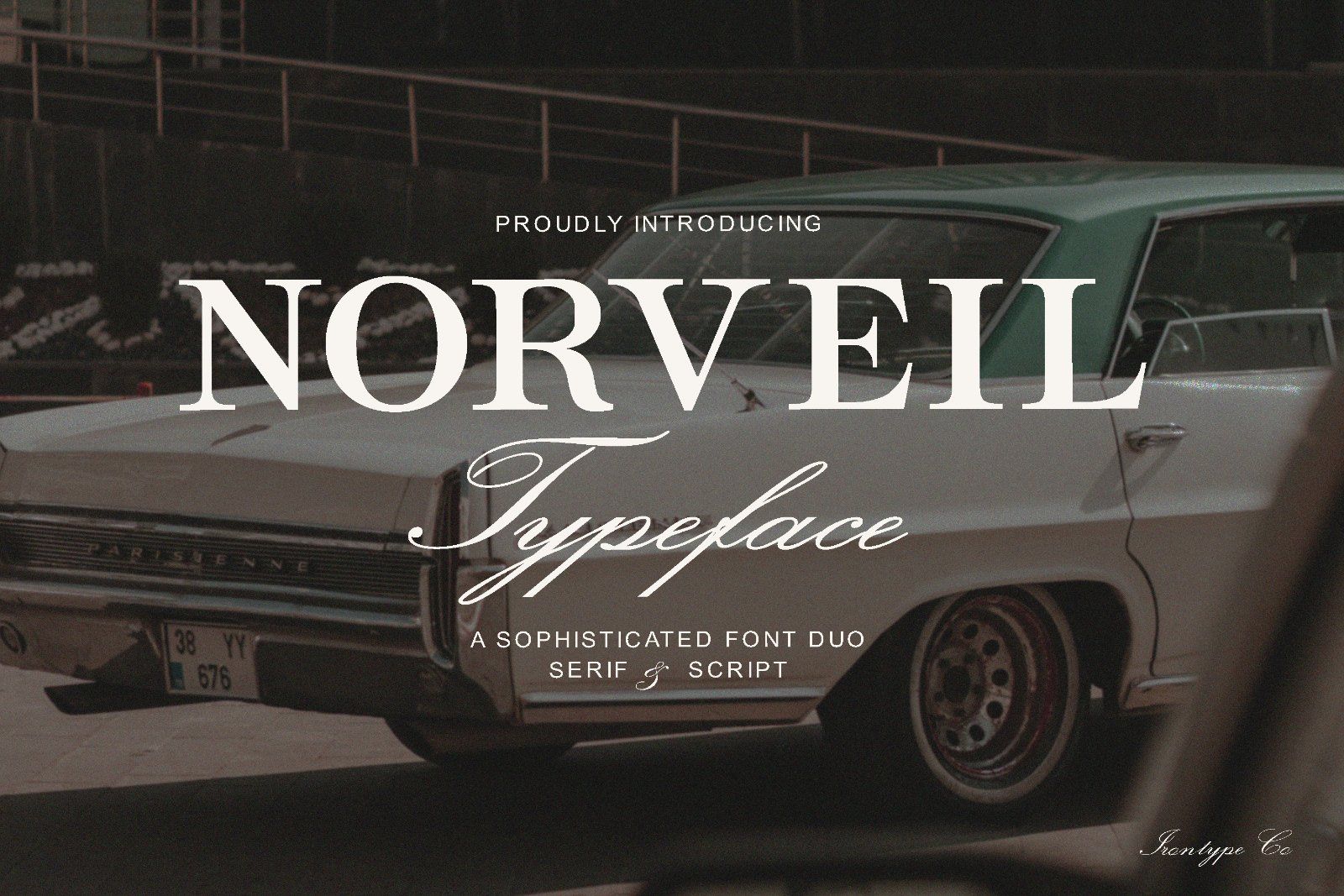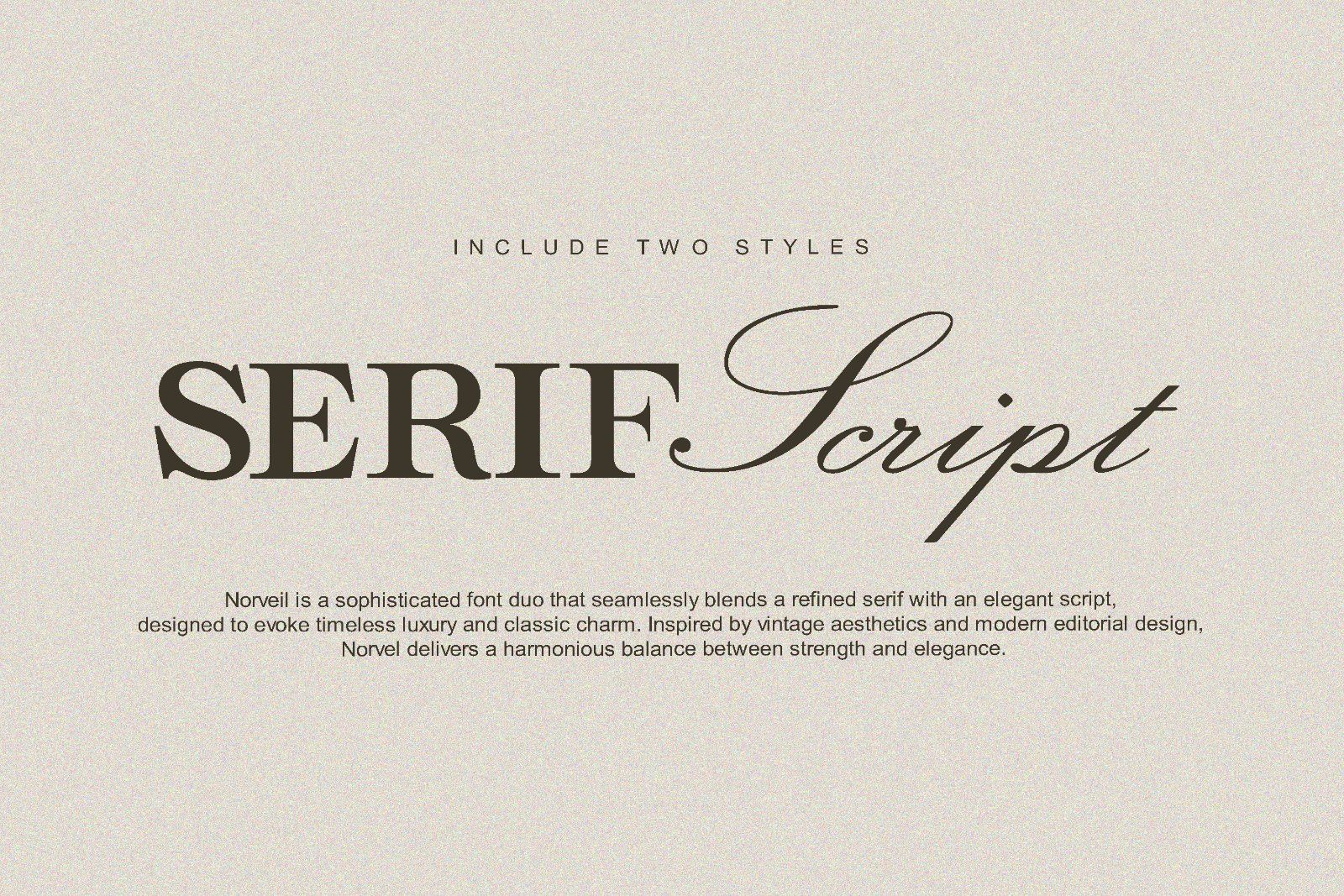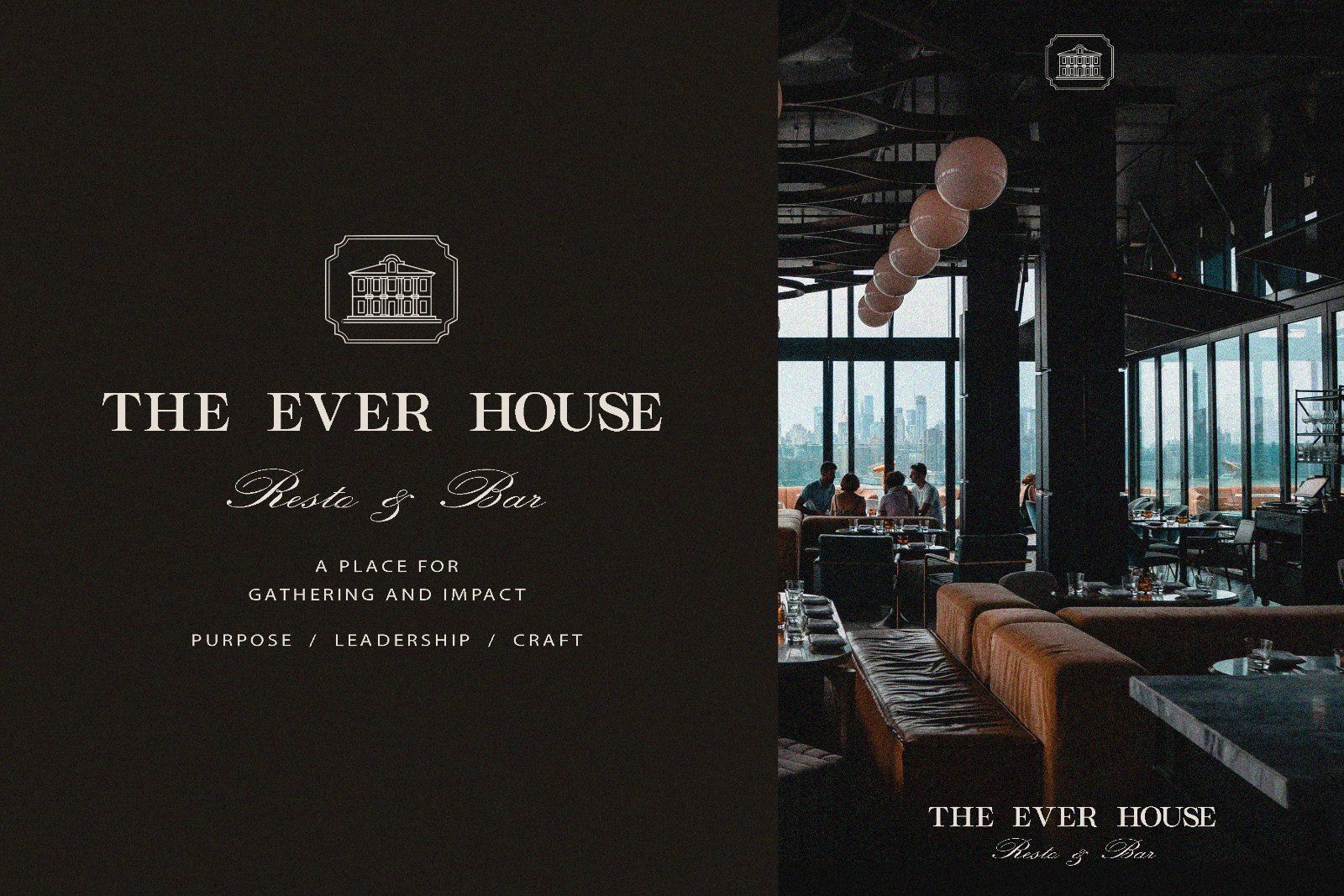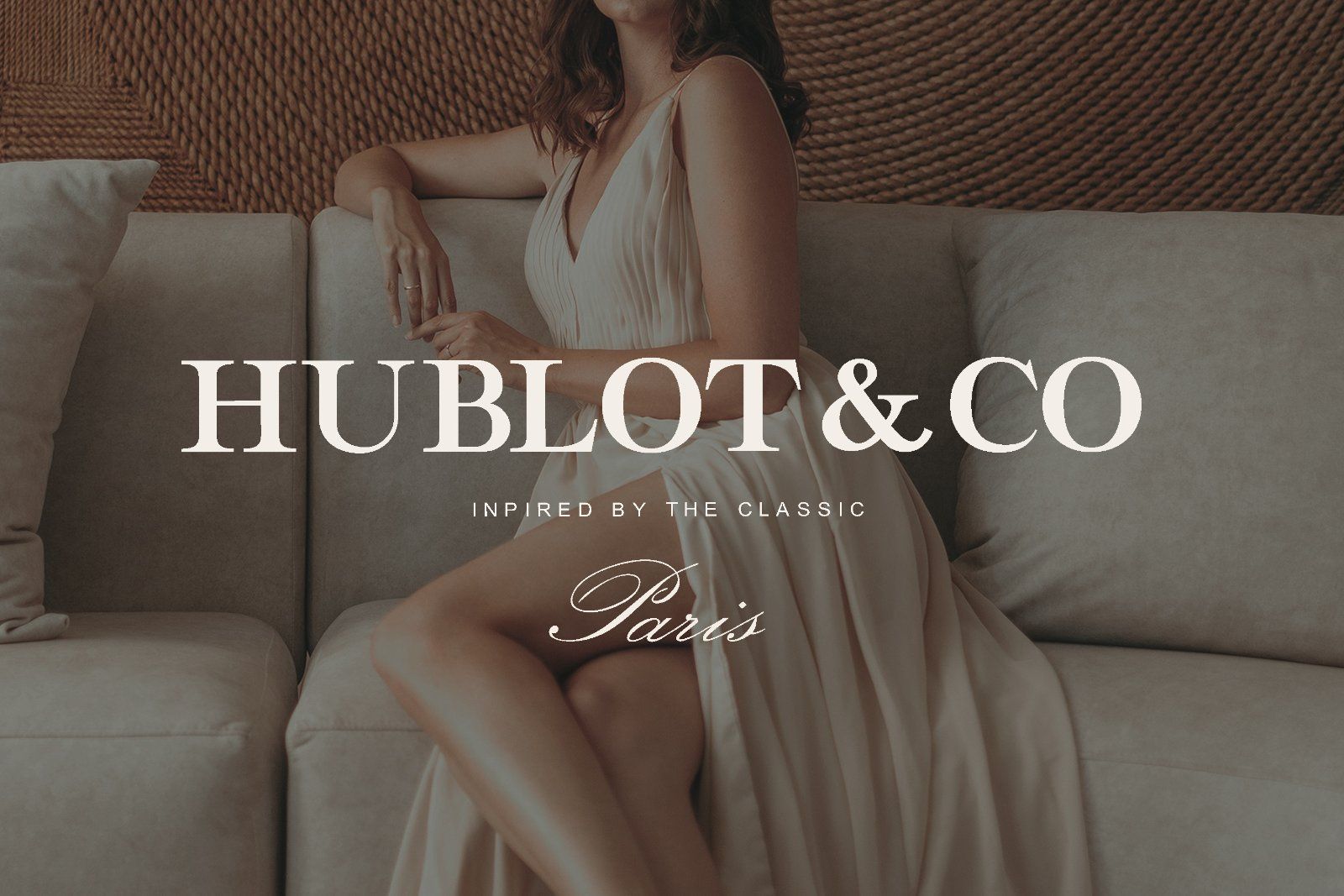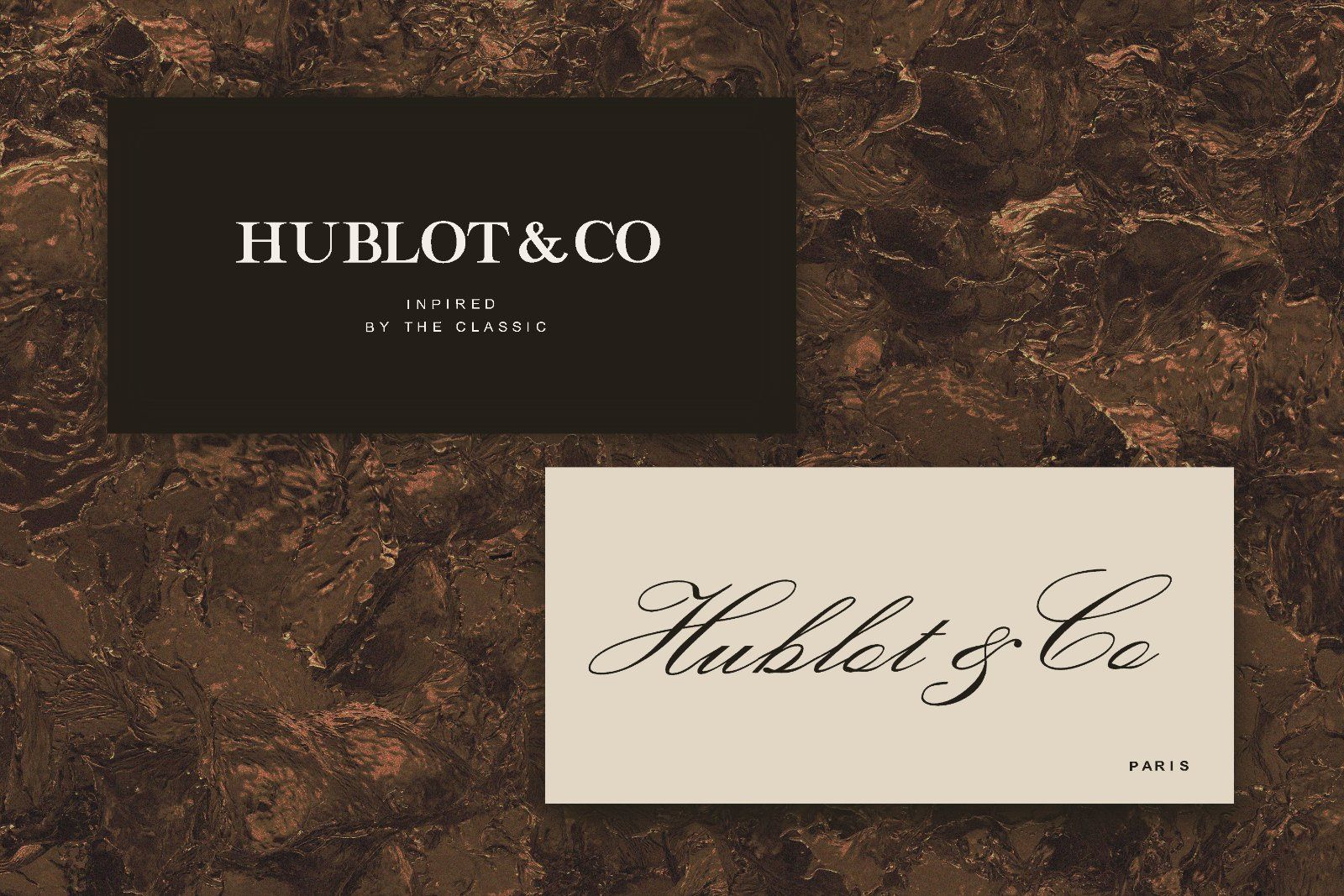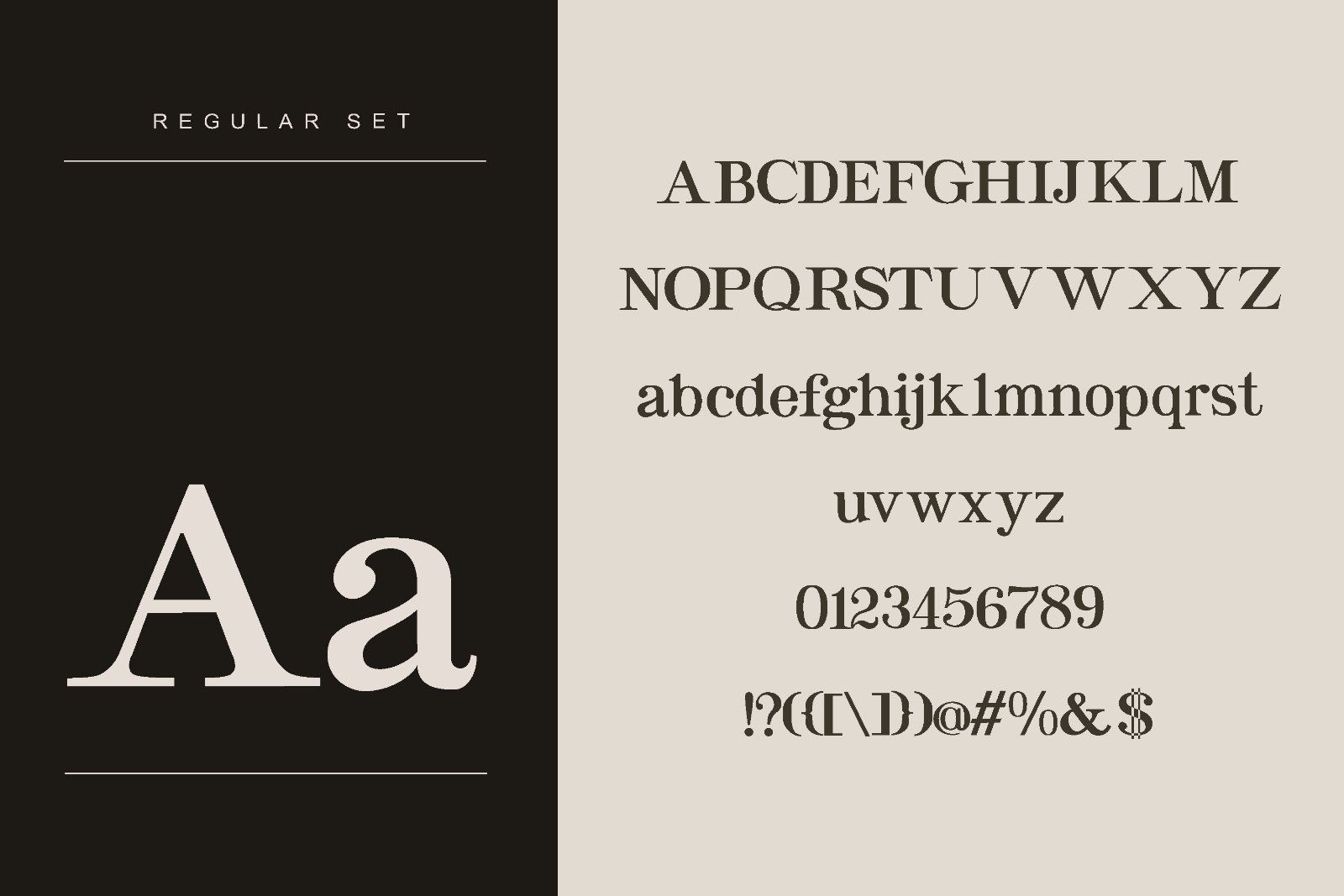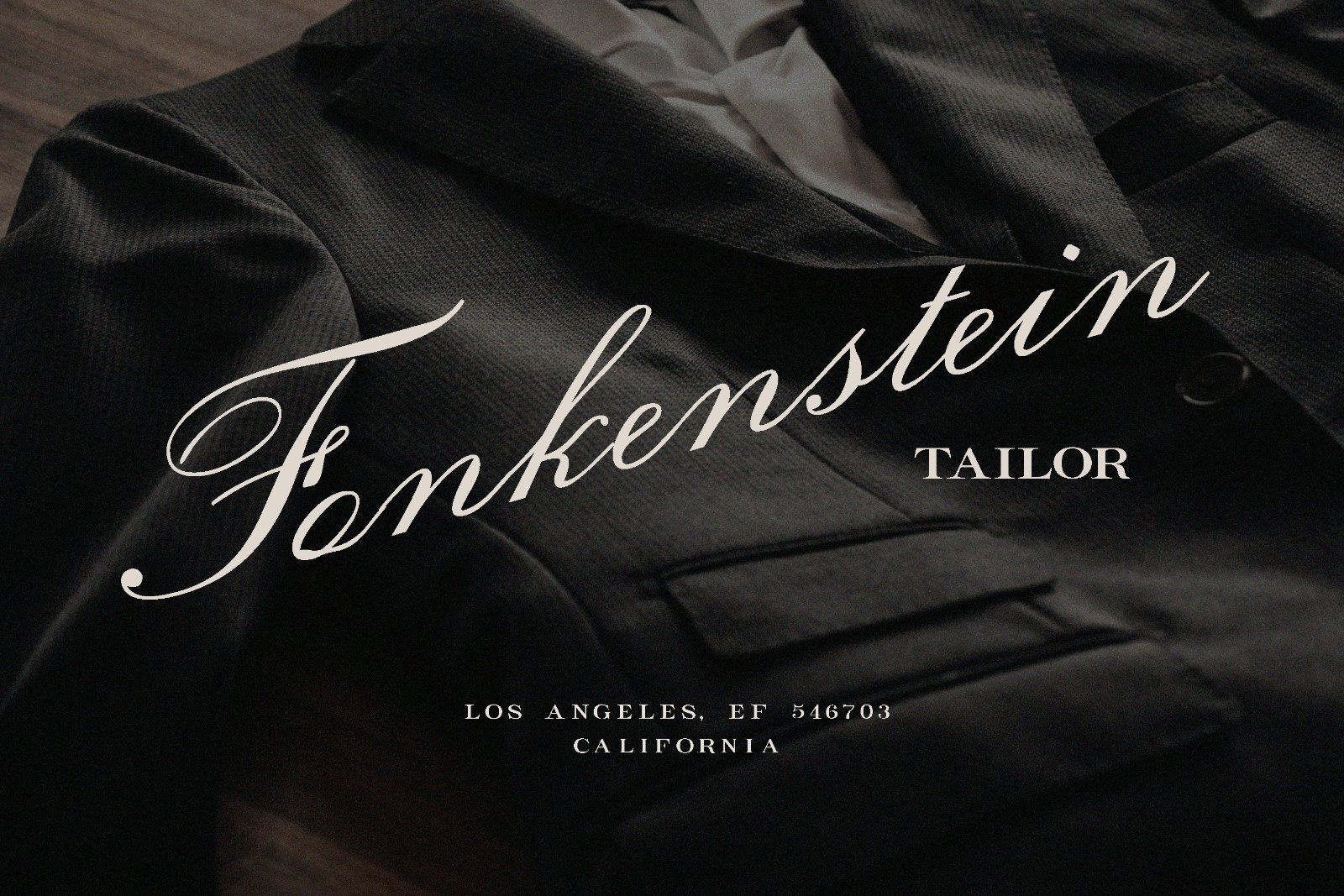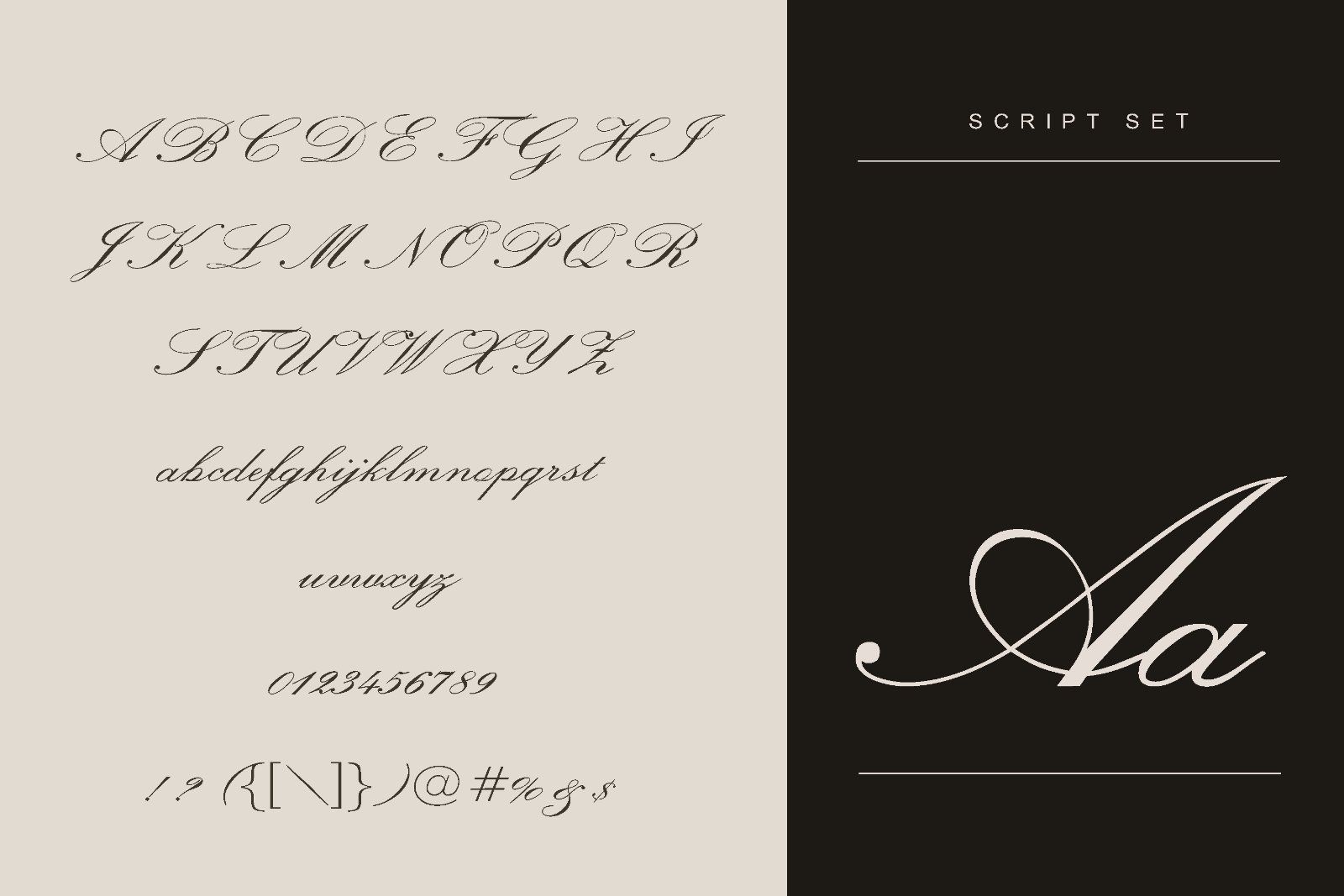
Norveil was created to meet the needs of designers who seek versatility without sacrificing character. Many projects demand both structure and expression—Norveil answers this by combining two complementary styles in one cohesive system. The serif provides clarity, authority, and readability, while the script adds personality, emotion, and a handcrafted touch.
• Uppercase & Lowercase Letters
• Numbers & Punctuation
• Multi Lingual Support
• Clean, timeless design and strong visual presence
Perfect for branding, fashion, luxury products, posters, album covers, invitations, packaging, and editorial design. Whether used separately or together, the font duo delivers a polished and professional result.